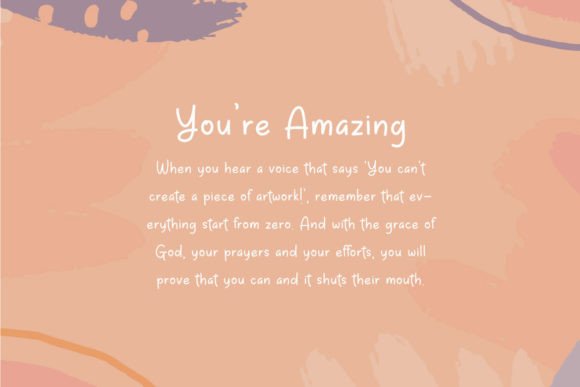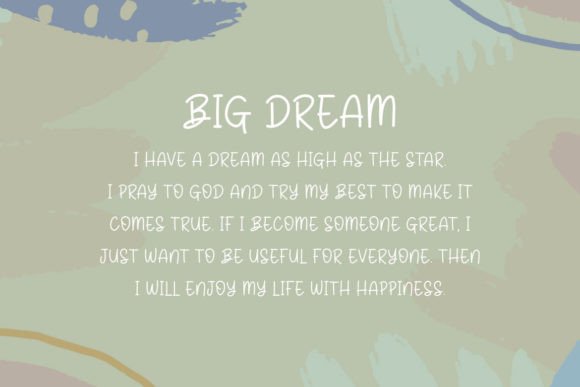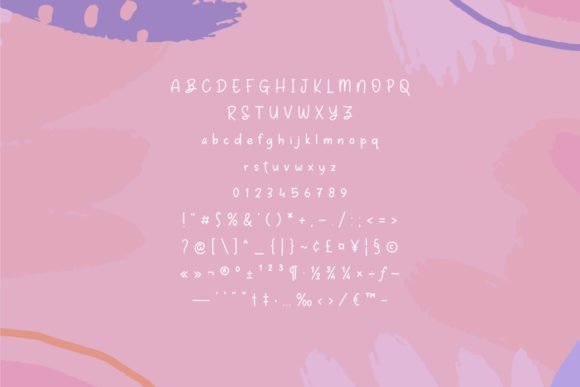
The Birth of a New Font: Baby Growt Font
Have you ever been working on a design project, pouring your heart and soul into every detail, only to feel like something’s missing? You’ve got the perfect color palette, the ideal typography, but it just doesn’t feel complete? That’s when the magic happens – you stumble upon the perfect font, and everything falls into place.
Enter Baby Growt Font, a minimalist handwritten script font designed to bring your designs to life. With its playful, yet sophisticated feel, Baby Growt Font is the perfect addition to any project, from comic books and posters to school projects and social media content. Whether you’re a seasoned designer or just starting out, Baby Growt Font is sure to become your new go-to font.
- Unique Characteristics: Baby Growt Font is a handwritten font with a playful, childlike feel. It features irregular letterforms, subtle imperfections, and expressive flourishes that evoke a sense of whimsy and innocence.
- Font Style: Baby Growt Font is a script font, ideal for creating eye-catching headings, titles, and short paragraphs where a touch of personality is desired.
Designer Review: Baby Growt Font
Overall, I think Baby Growt Font is a cute and playful font, perfect for creating child-friendly designs. ✨ The font’s rounded edges and gentle curves give it a soft, cuddly feel that’s sure to appeal to parents and kids alike.
The font is also highly customizable, with a wide range of sizes and styles available. ✨ This makes it easy to adapt to different design contexts, from baby shower invitations to children’s book illustrations.
Here are some of the font’s key features:
- Soft, rounded edges
- Wide range of sizes and styles
- Perfect for child-friendly designs
However, I do have a few criticisms. ⚠️ The font can be a bit too playful and cutesy at times, which may not be suitable for all design contexts. Additionally, the font’s customization options can be overwhelming, making it difficult to choose the right style and size for a particular project.
Overall, I think Baby Growt Font is a solid choice for designers looking to create child-friendly designs. While it may have some limitations, its unique style and high level of customization make it a valuable addition to any design toolkit.
The Baby Growt Font is ideal for creating playful, whimsical designs. Some common use cases include:
- Children’s birthday invitations and party decorations.
- Infant and toddler product packaging and branding.
- Children’s book illustrations and graphics.